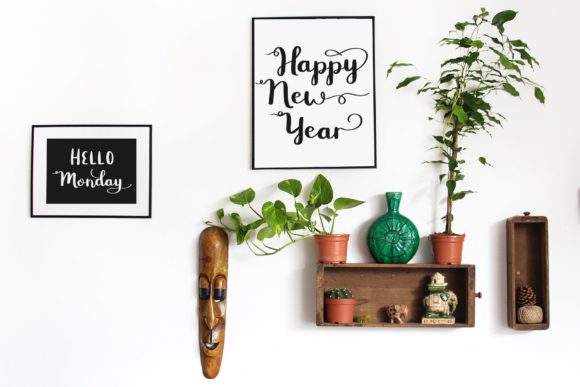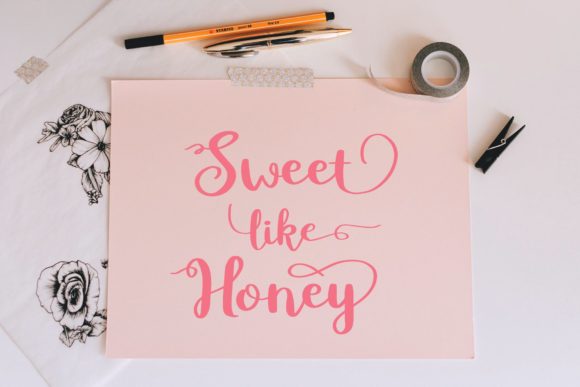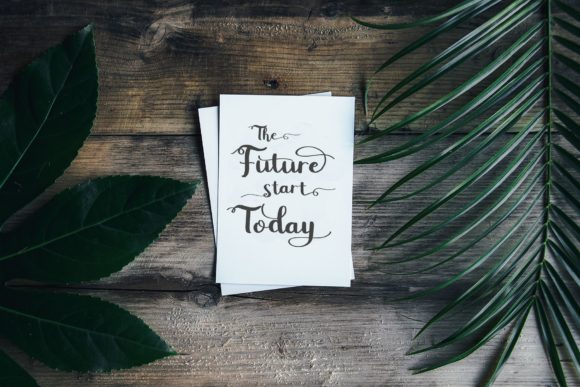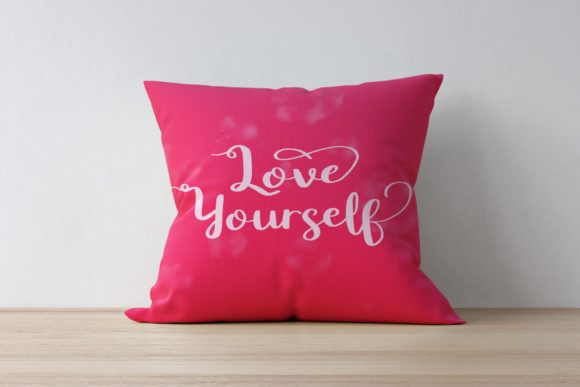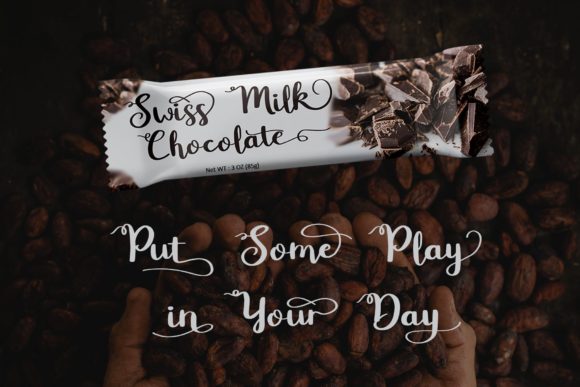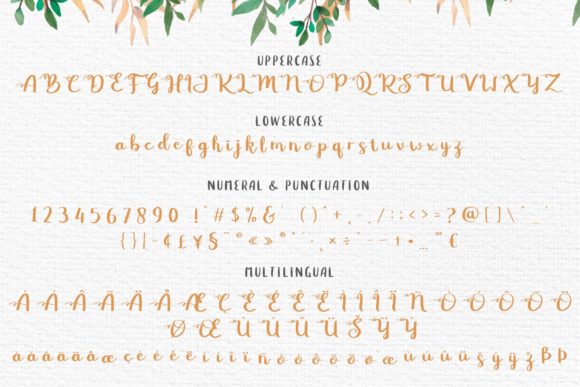
Discover the Charm of Betty Rose Font: Elevate Your Design with a Personal Touch
In the world of typography, few fonts manage to capture the essence of human expression as beautifully as the Betty Rose font. This handwritten script font is a game-changer for designers and crafters looking to infuse their work with a personal touch. Based on the natural flow and imperfections of real handwriting, Betty Rose offers a unique opportunity to transform ordinary text into an exciting and beautiful piece of art.
The Beauty of Imperfection
One of the standout features of the Betty Rose font is its irregular, hand-lettered look. Unlike uniform, machine-generated fonts, Betty Rose brings a level of authenticity to your designs. Each letter, word, and sentence flows into the next with a natural rhythm, mimicking the way we write in our daily lives. This subtle irregularity adds a human touch to your text, making it more relatable and engaging to your audience.
The font is meticulously crafted with loving details that reflect the personality of the writer. From the gentle swirls of letters to the nuanced spacing between words, every element of the Betty Rose font is designed to evoke a sense of warmth and intimacy. Whether you’re working on a fashion brand, e-commerce site, trend blog, or wedding boutique, this font can help you connect with your audience on a more personal level.
Versatility and Elegance
Beyond its charming imperfections, the Betty Rose font is also incredibly versatile. Its elegant and upscale appearance makes it suitable for a wide range of applications, from high-end fashion magazines to sophisticated e-commerce platforms. The font’s chic aesthetic can instantly elevate your brand’s visual identity, giving it a refined and polished look that stands out in a crowded market.
For fashion brands, the Betty Rose font offers a stylish way to showcase product descriptions, brand stories, and promotional messages. E-commerce sites can use it to create visually appealing product titles, descriptions, and call-to-action buttons that draw customers in. Trend blogs and wedding boutiques can leverage the font’s romantic and whimsical feel to create engaging content and promotional materials that resonate with their audience.
Practical Applications for Designers and Crafters
So, how can designers and crafters make the most of the Betty Rose font? Here are a few practical tips:
- Branding and Packaging: Use the Betty Rose font to create custom logos, product labels, and packaging that reflect your brand’s personality.
- Digital Content: Apply the font to blog posts, social media graphics, and email newsletters to add a personal touch to your digital content.
- Print Materials: Incorporate the Betty Rose font into brochures, flyers, and business cards to create a cohesive and elegant visual identity.
- Web Design: Use the font for headings, titles, and captions on your website to create a unique and memorable user experience.
The Betty Rose font is more than just a typeface – it’s a tool for creative expression and connection. By embracing the natural imperfections and variations of handwriting, designers and crafters can create work that resonates with their audience on a deeper level. Whether you’re looking to elevate your brand’s visual identity or simply add a personal touch to your designs, the Betty Rose font is an excellent choice. With its elegance, versatility, and charm, this font is sure to inspire your next creative project.
So why settle for ordinary fonts when you can add a touch of humanity to your designs? Explore the possibilities of the Betty Rose font today and discover a new way to connect with your audience through the power of beautiful, handwritten typography.